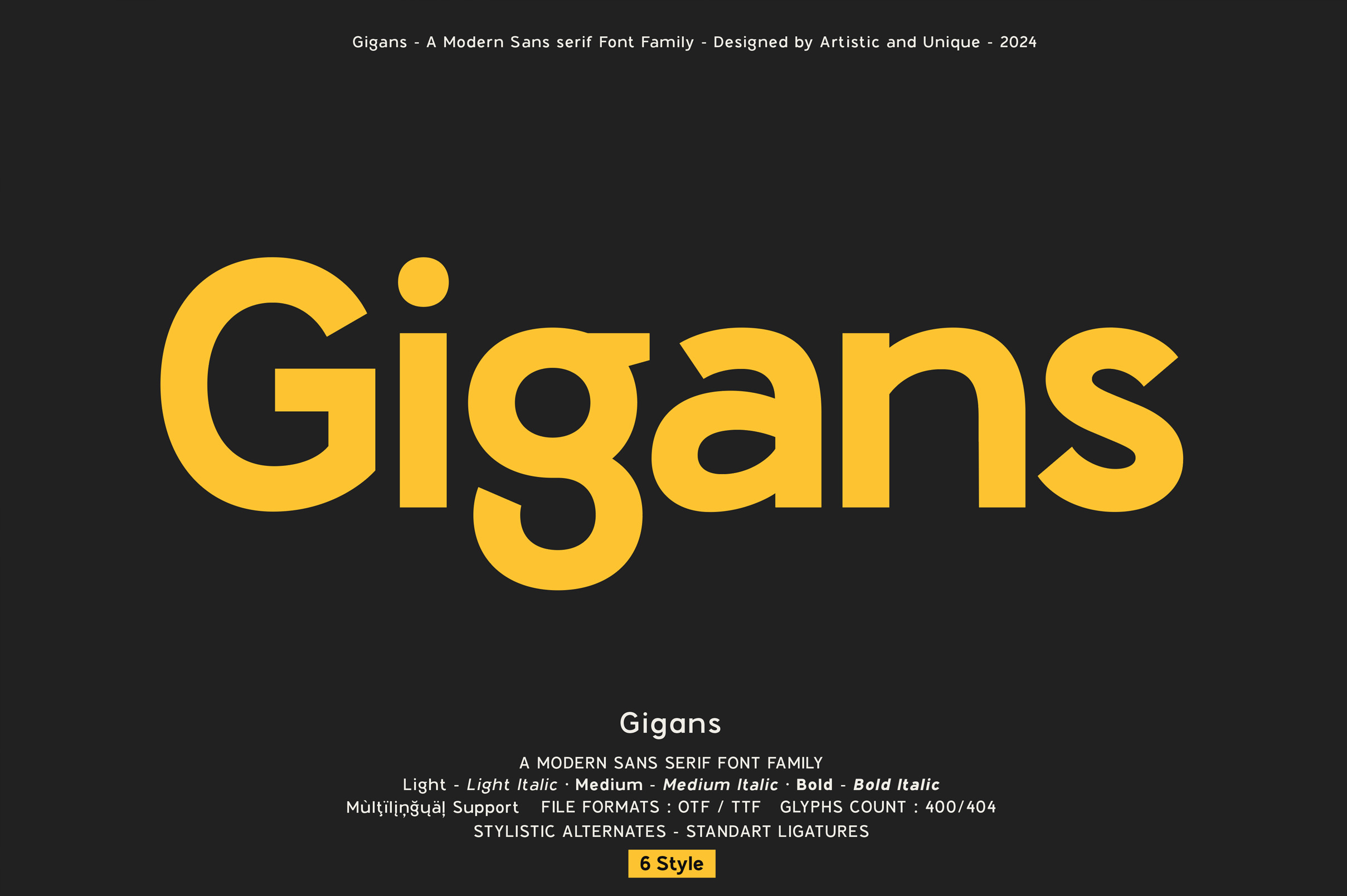
Gigans - Sans serif font family
Gigans - Sans serif font family - 6 Styles - Multilingual supports.
Gigans Sans serif font family is a modern font with 6 styles, alternate characters and multilingual supports. It has a unique characteristic structure.
You can use the bold style for strong and emphatic headlines, and the medium and light styles for body texts.
With these features, it will be effective in creating alternatives in your projects. It is also assertive about being a highly readable font in different weights.
You can easily use the sans serif font feature in many areas.
Ideal for books and magazines, editorials, headlines, websites, logos, branding, advertising, movie titles, posters and more. This font family can meet your needs in all creative projects, modern and classic.